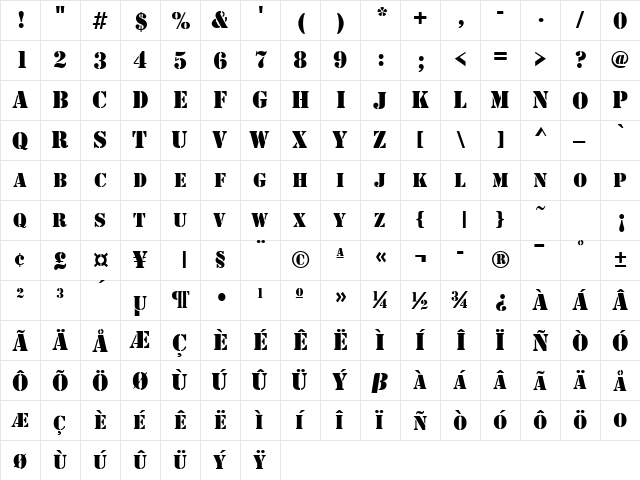
Stensil Normal
Design Context for Stensil Typeface
Stensil takes a measured approach to typography — its balanced proportions and neutral character make it a reliable workhorse for both digital and print work.